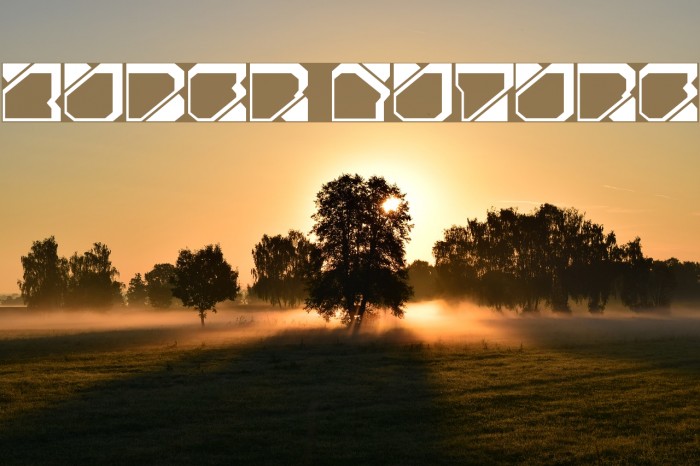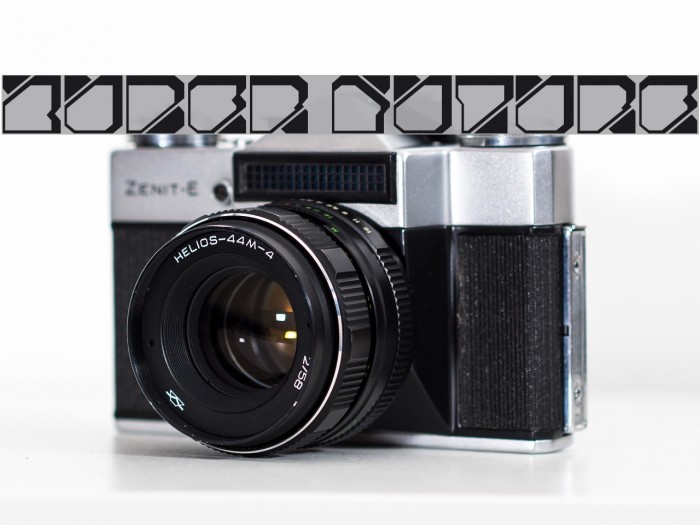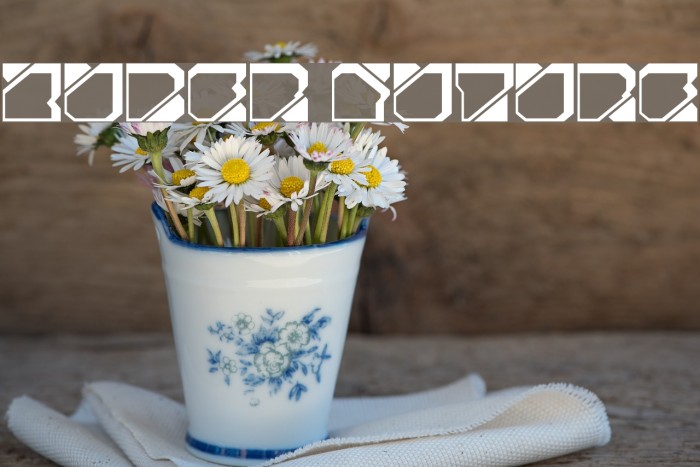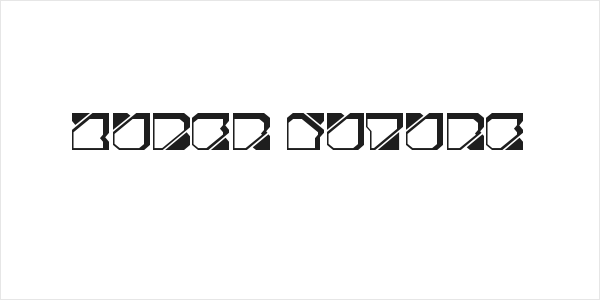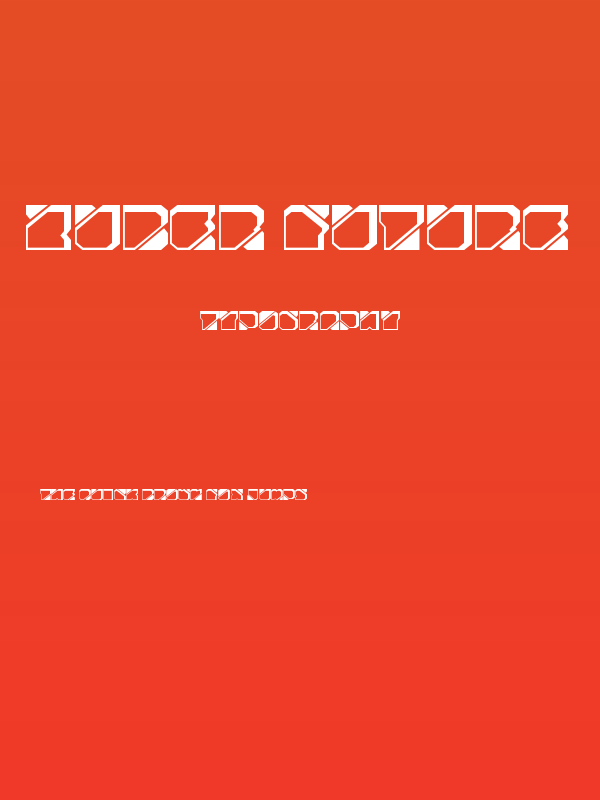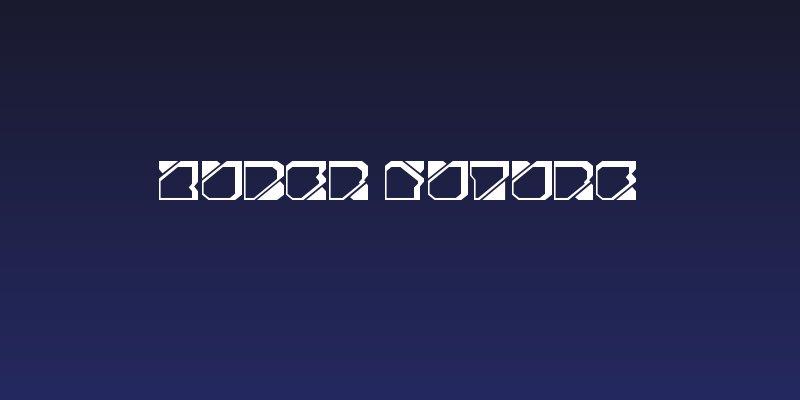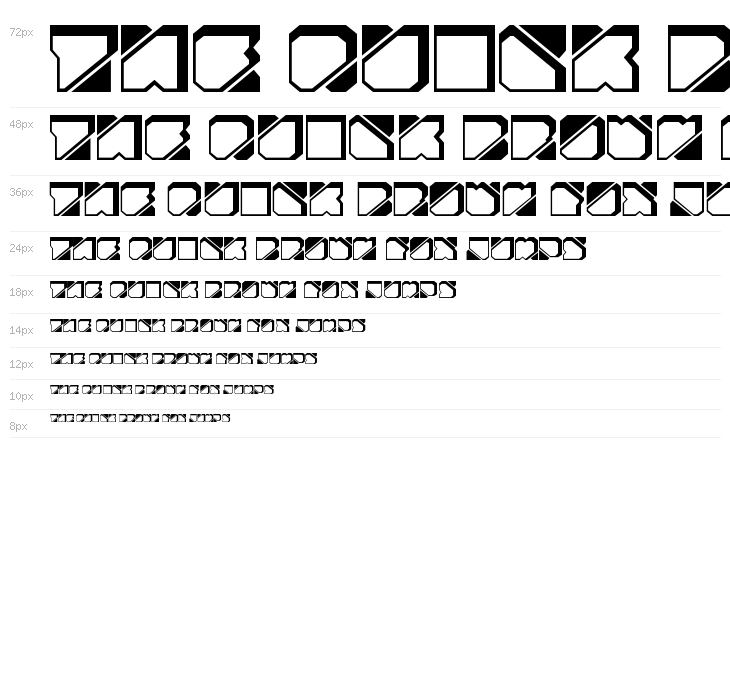
Zuber future Font
Zuber future Description
This font features a futuristic and geometric design with bold, angular shapes. Each character is constructed with a combination of straight lines and sharp angles, creating a sense of modernity and innovation. The letters are uniform in height and width, giving a monospaced appearance. The use of negative space within the characters adds to the distinctiveness, making it highly suitable for digital and tech-themed projects. The font's unique style is eye-catching and ideal for making a strong visual impact.
| Proposed Projects | Ideal for tech branding, digital art, video game interfaces, and futuristic-themed posters. |